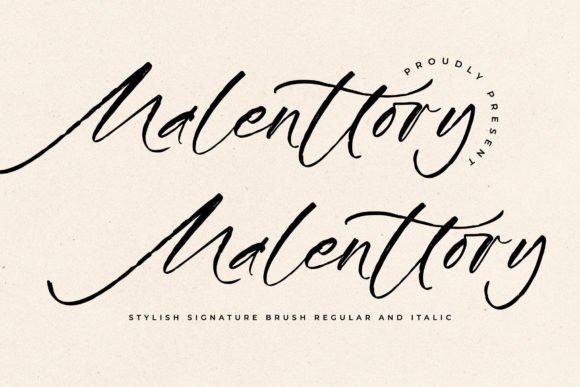
Malenttory Font
Malenttory Font – Stylish Signature Brush , from Glorytype Studio, suitable for any projects such as: logos, branding projects, homeware designs, product packaging, mugs, quotes, posters, shopping bags, t-shirts, book covers, name card, invitation cards, greeting cards, label, photography, watermark, special events, and all your other lovely projects that need a beautiful script taste.